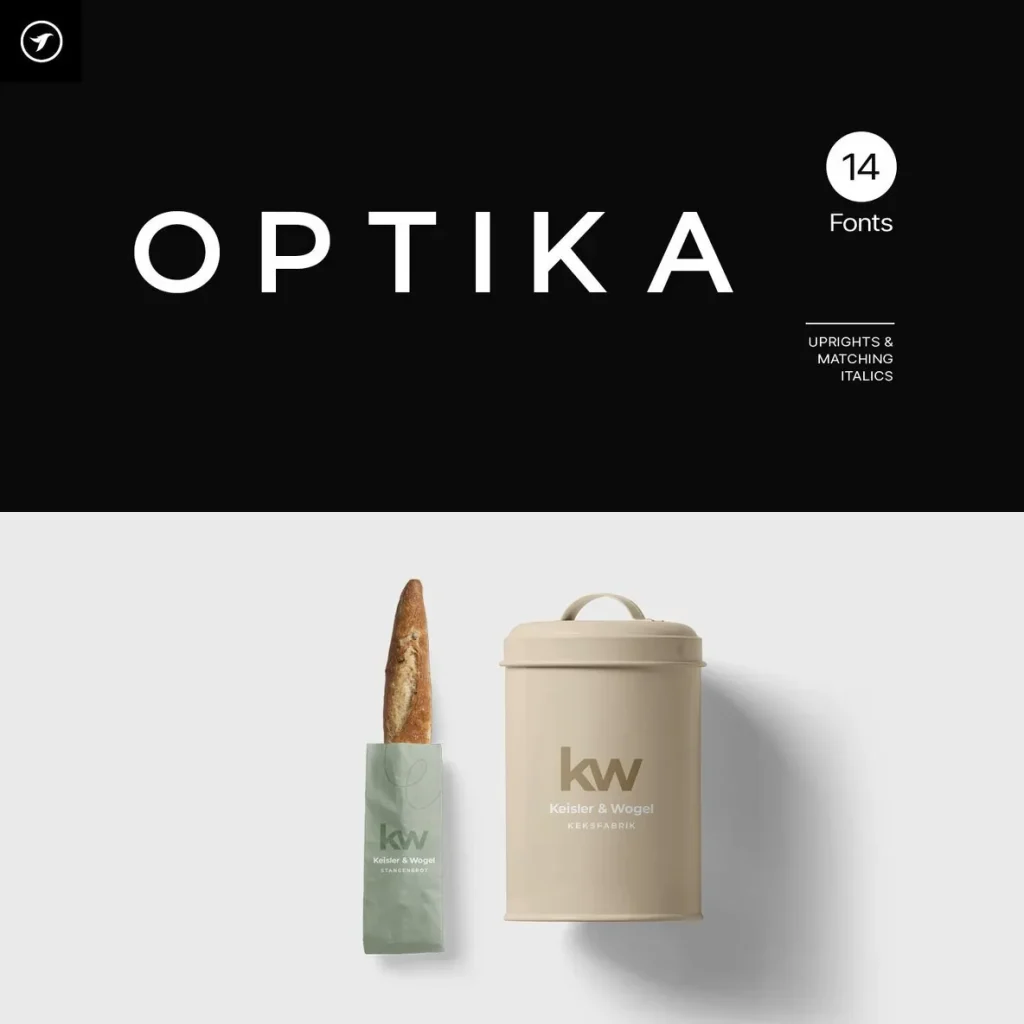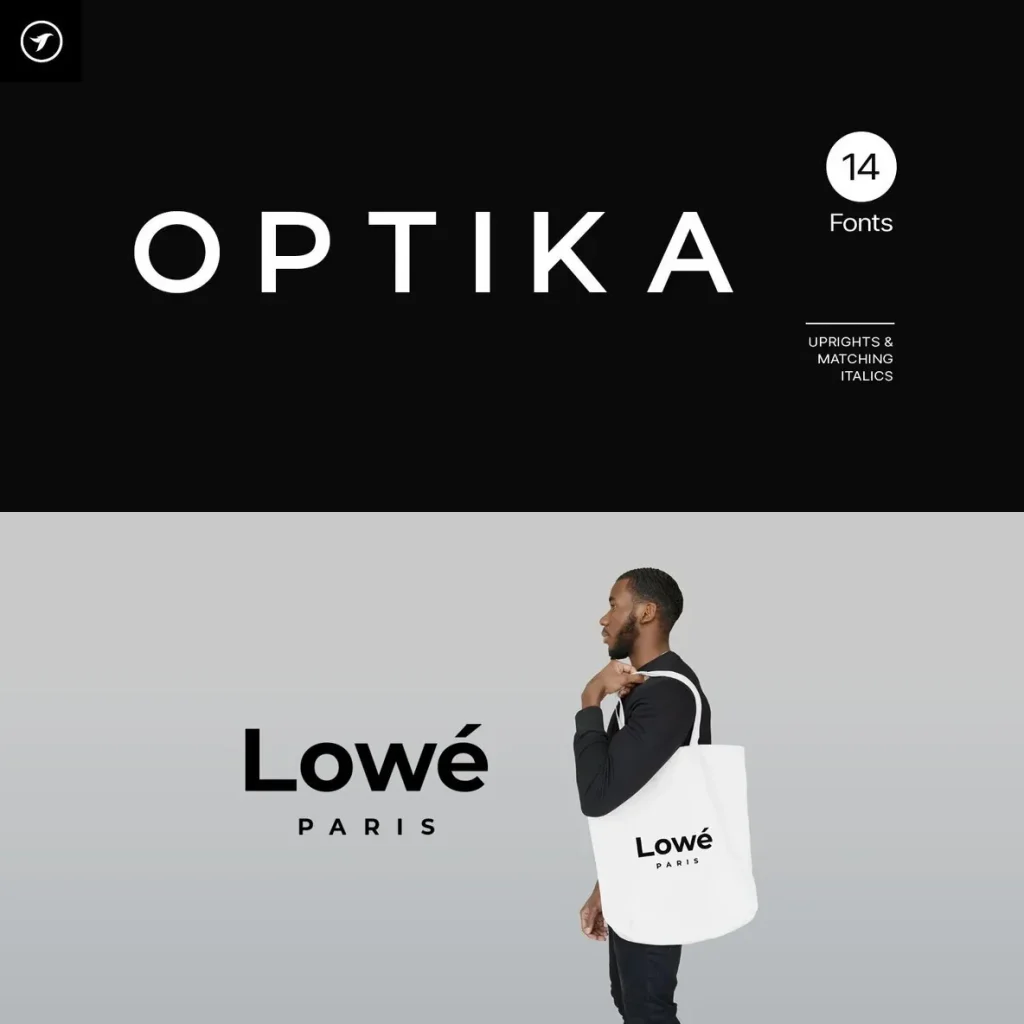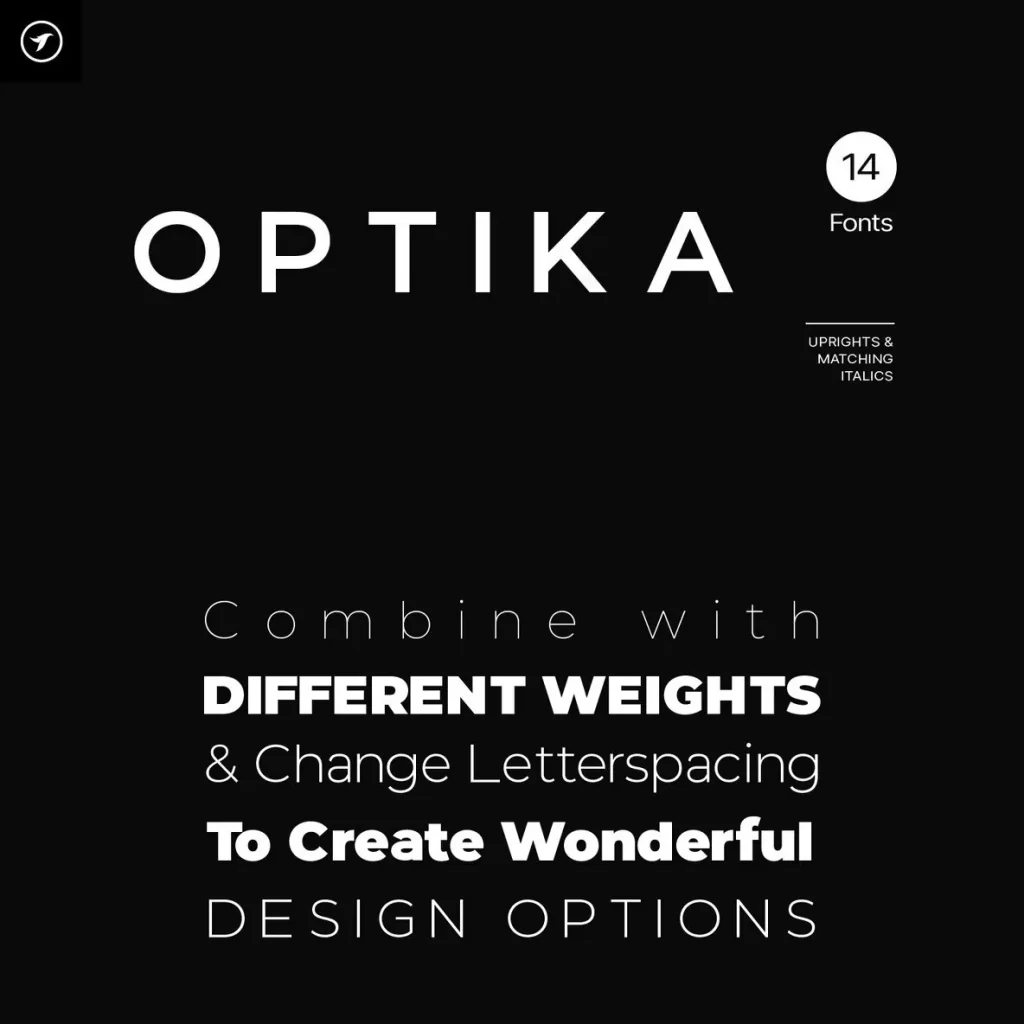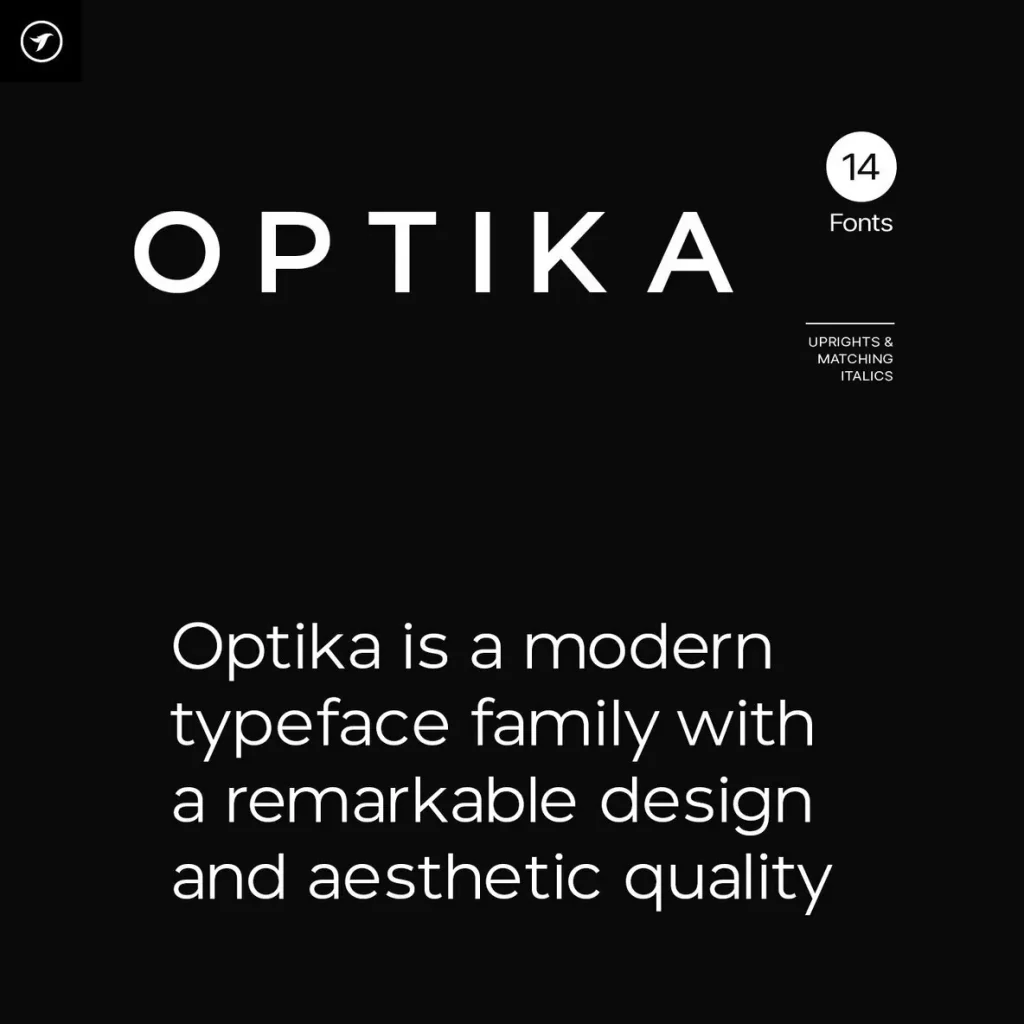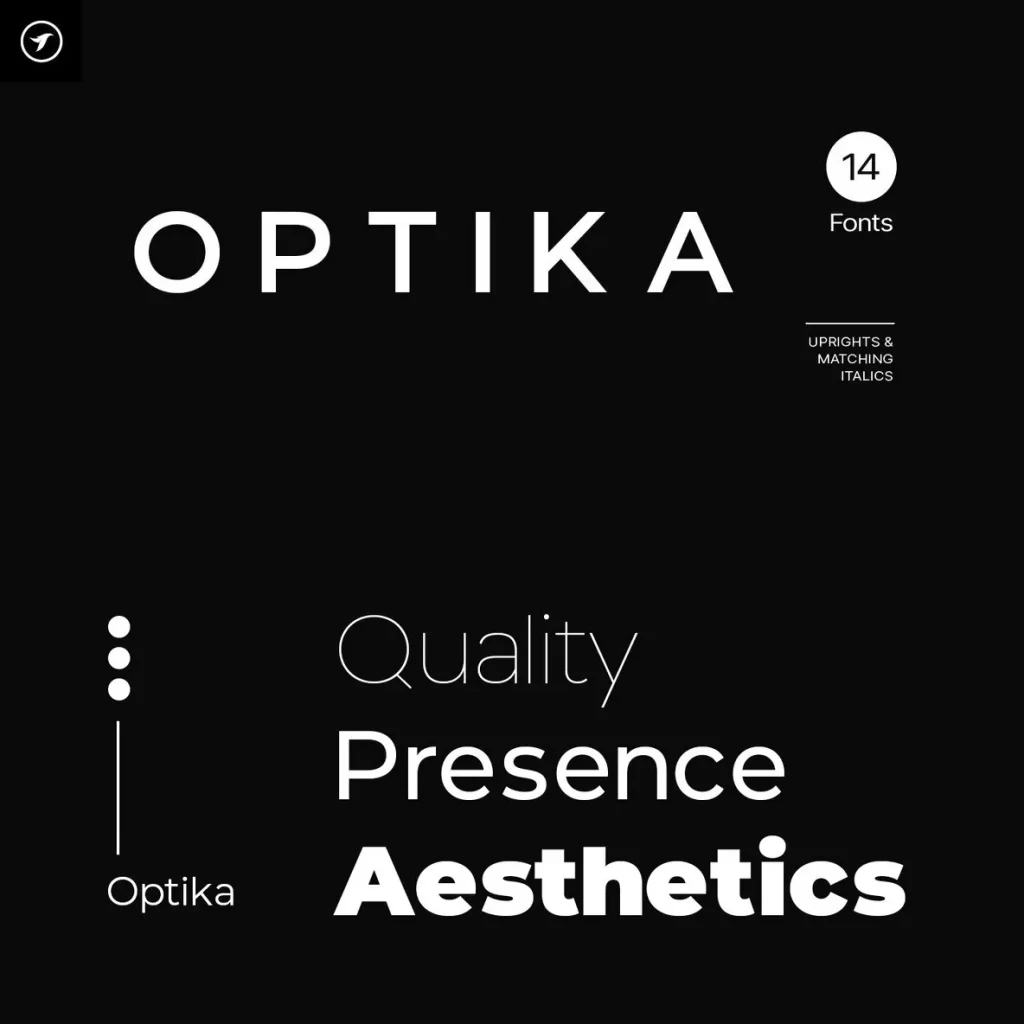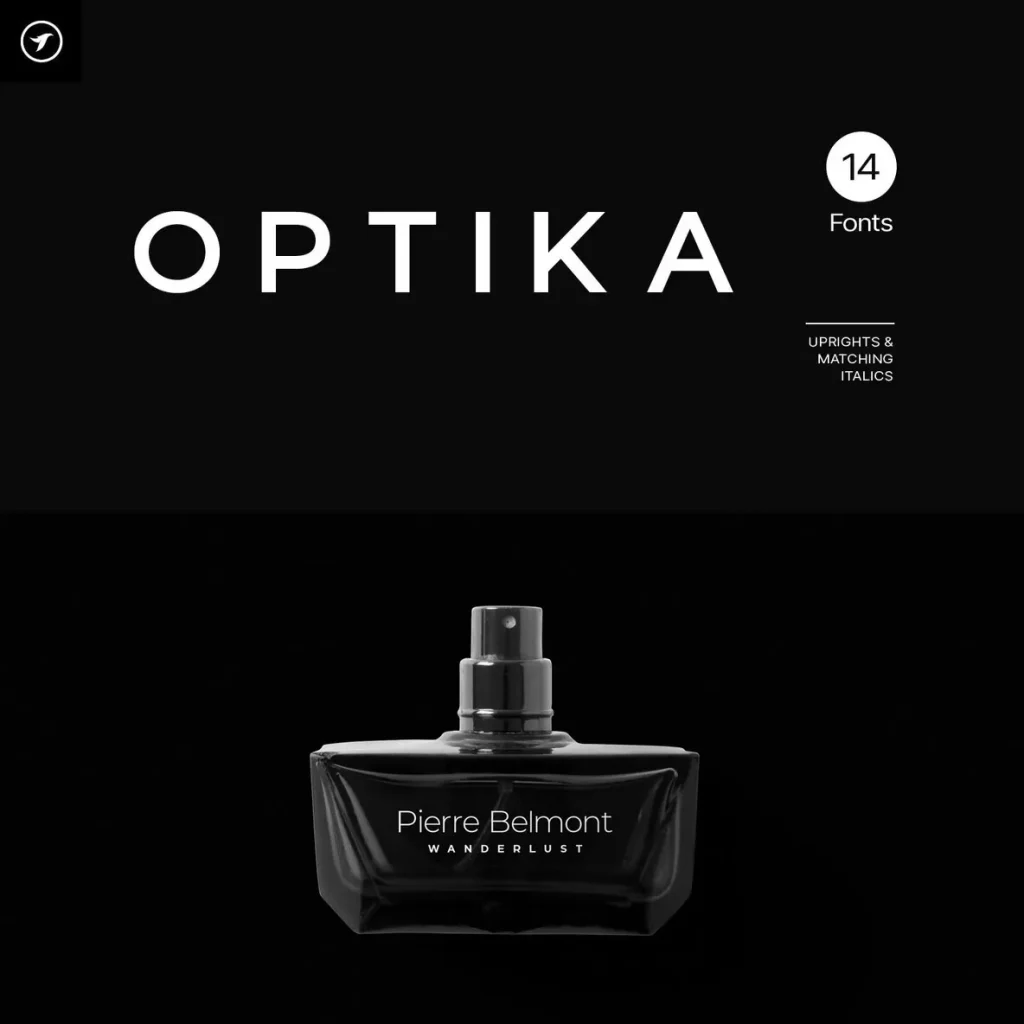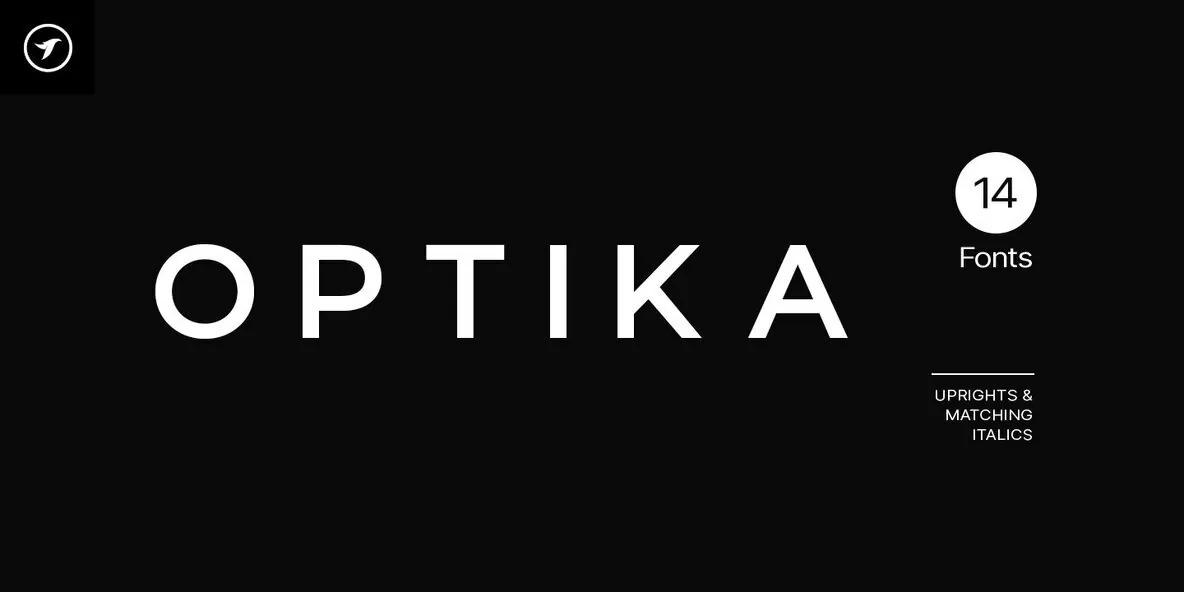
OPTIKA — Minimalism in Clear Focus
OPTIKA is a minimalist sans-serif typeface family created with clean construction, modern proportions, and refined simplicity. Its carefully balanced design gives designers a clear typographic system for work that needs precision without visual noise.
Built for both digital and print applications, OPTIKA suits branding, editorial design, interfaces, packaging, and contemporary visual communication. Its restrained character keeps layouts crisp and direct, making it a dependable choice for design systems that value clarity, order, and a modern sans-serif voice.